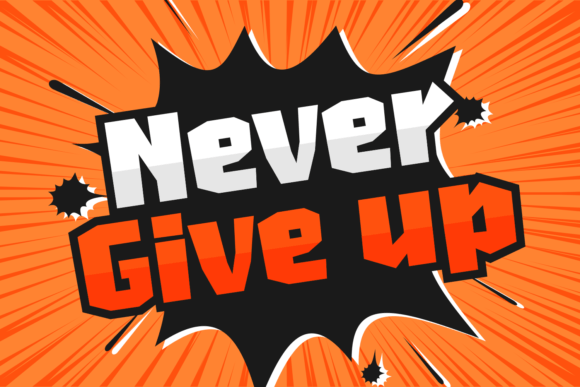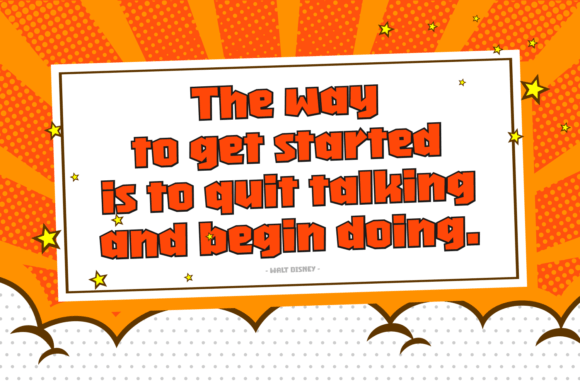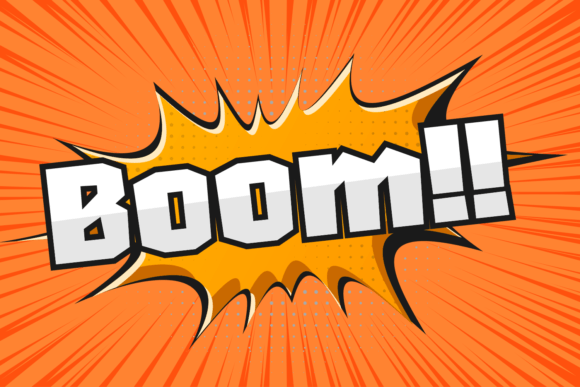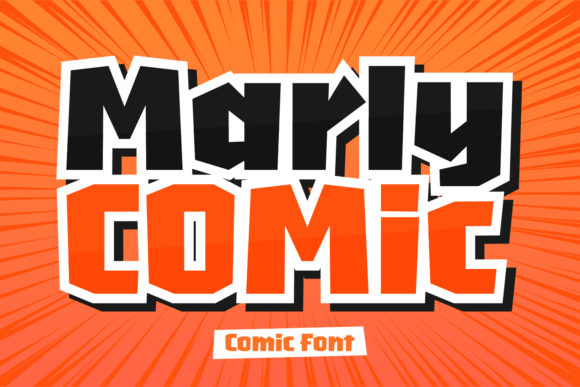
Introduction to Marly Comic Font
Marly Comic is a spectacular cartoon display font.
Add a touch of joy and playfulness to your typography designs with this thick-lettered font that can elevate any creation You can use it to create outstanding headlines, posters, titles, games, apps, kids’ t-shirts, book covers, and more.
Marly Comic Font offers exceptional quality and versatility, making it a valuable addition to your design toolkit. Whether you’re creating for personal projects or commercial use, Marly Comic Font delivers professional results.